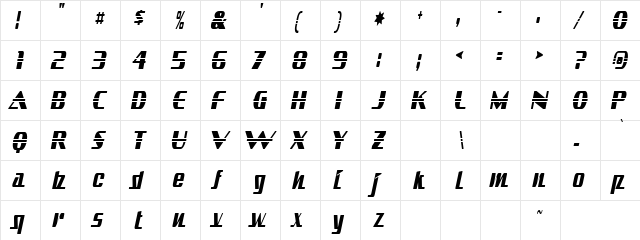
QuitisQup Regular
Design Context for QuitisQup Typeface
QuitisQup is a composed and adaptable typeface that performs quietly and consistently across a wide range of design contexts.